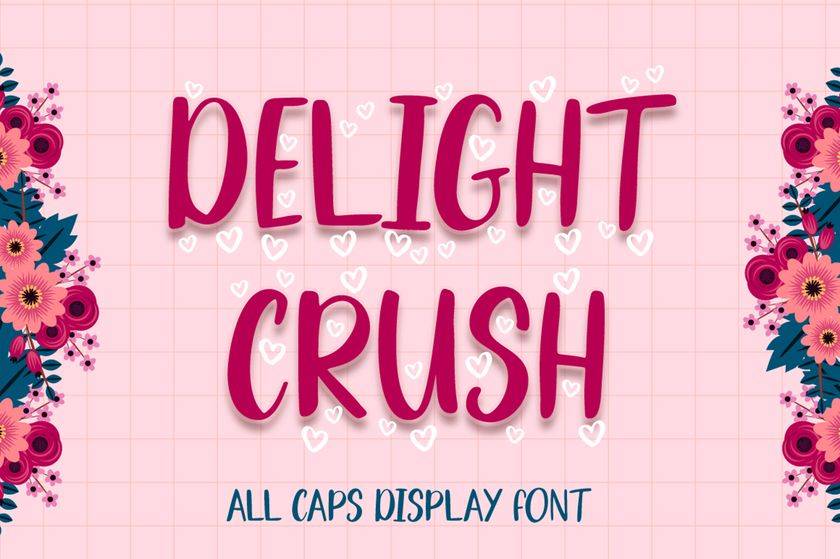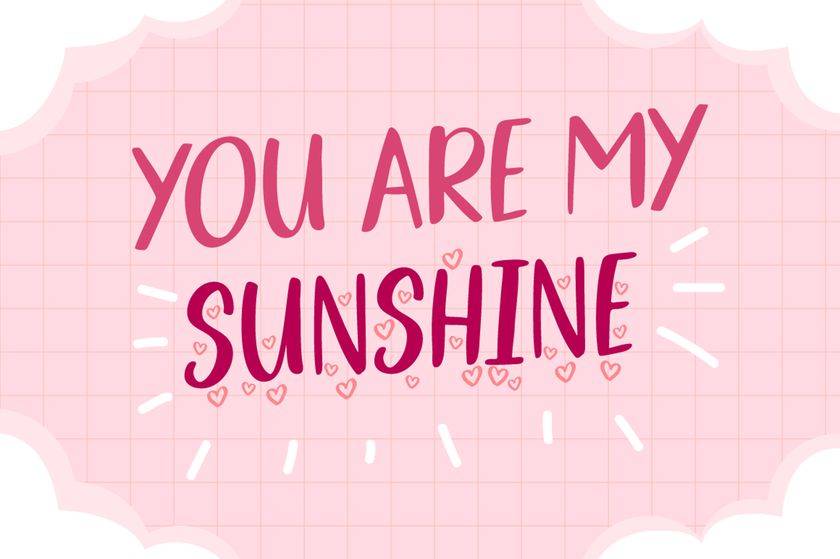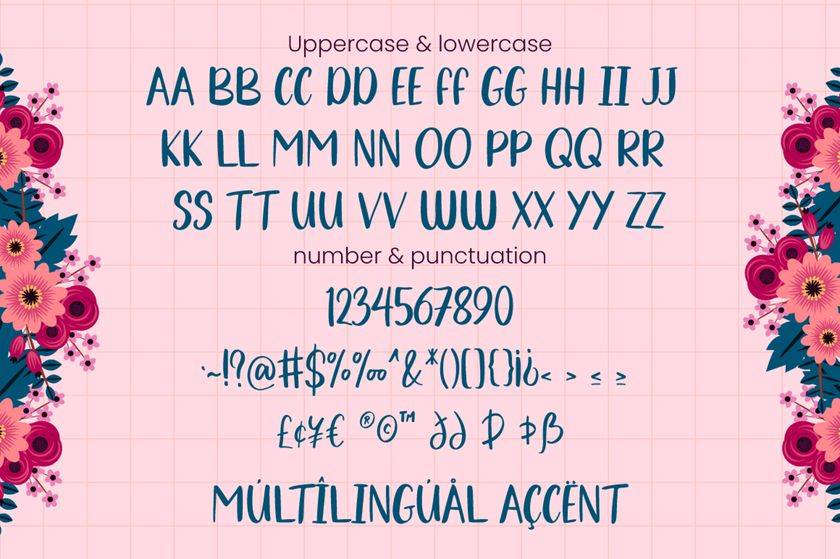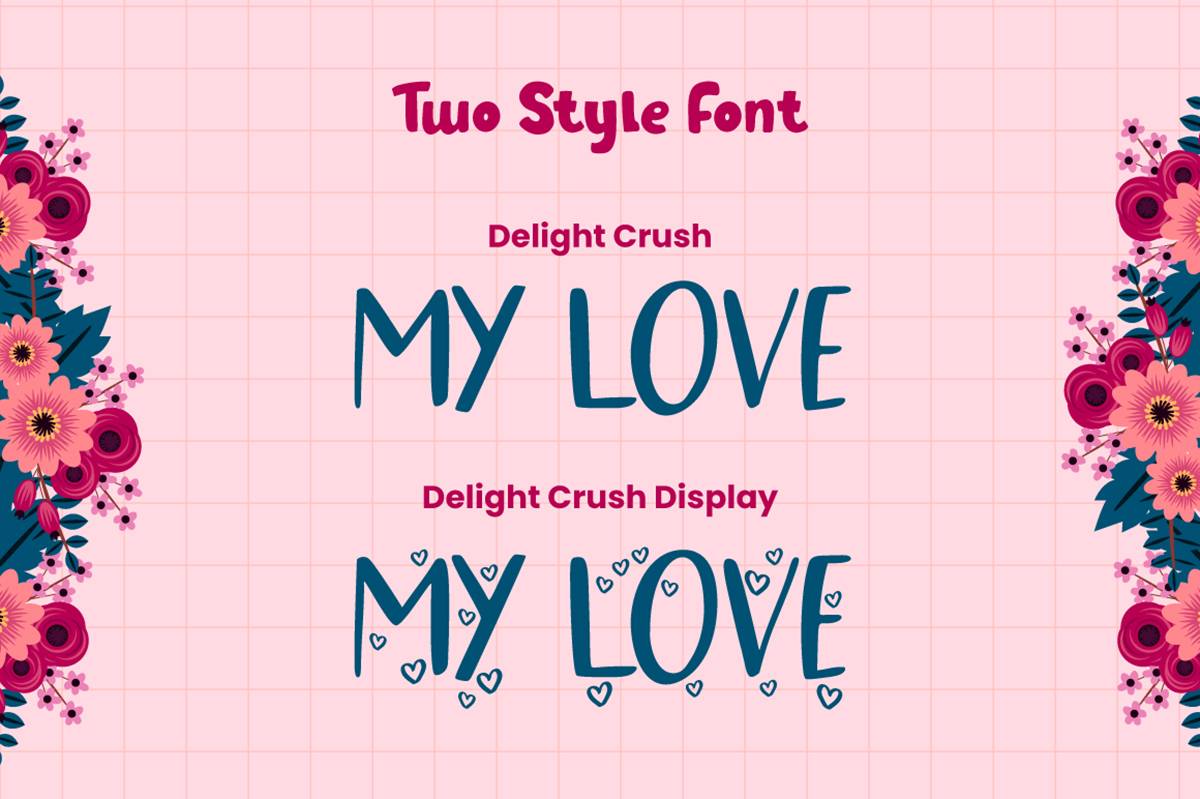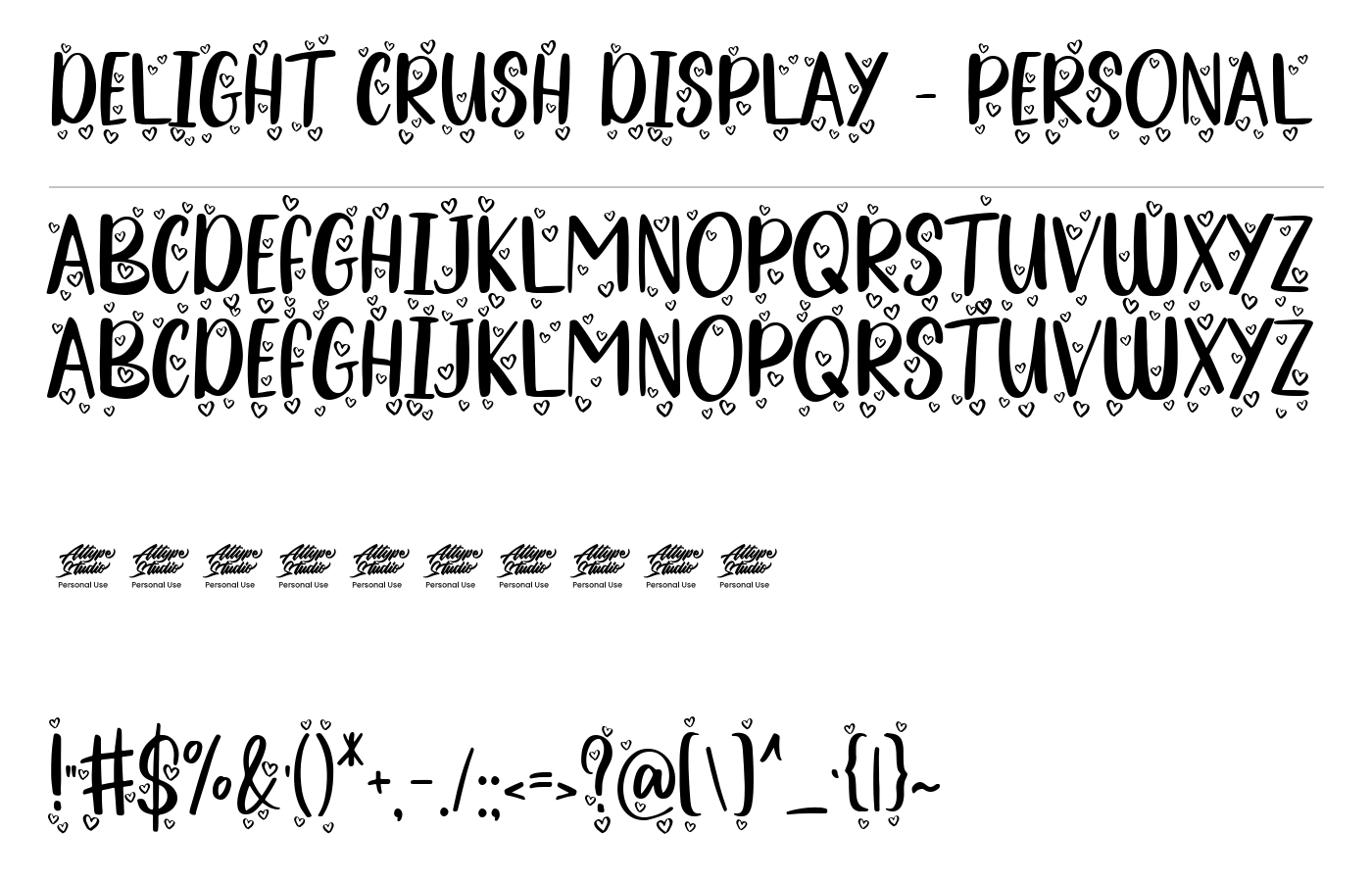
Delight Crush is a playful, hand-drawn display font characterized by tall, narrow letterforms and whimsical heart-shaped accents that give it a fun and charming personality. Its casual, slightly irregular strokes make it perfect for designs that want to evoke warmth, friendliness, and a youthful spirit. Ideal for personal projects, invitations, or branding that seeks a lighthearted and affectionate vibe, this font shines in headlines and decorative uses where a unique, delightful touch is needed.
Delight Crush Font
About Delight Crush Font
| Font family | Delight Crush Font |
| Designer | Fadli Ramadhan Iskandar |